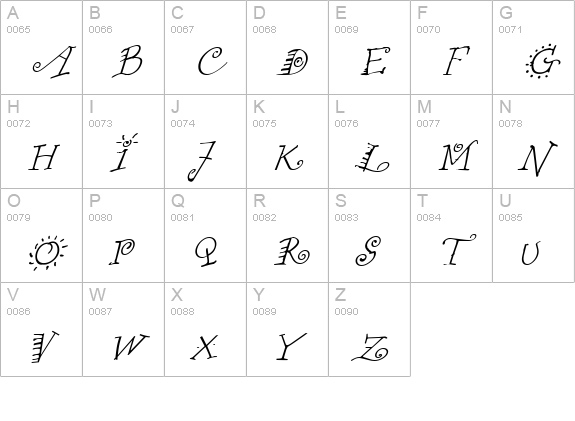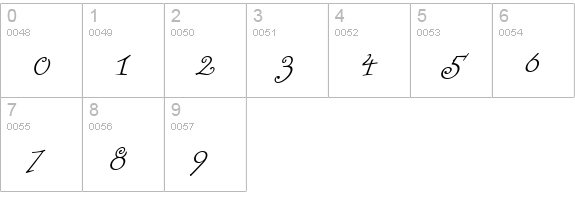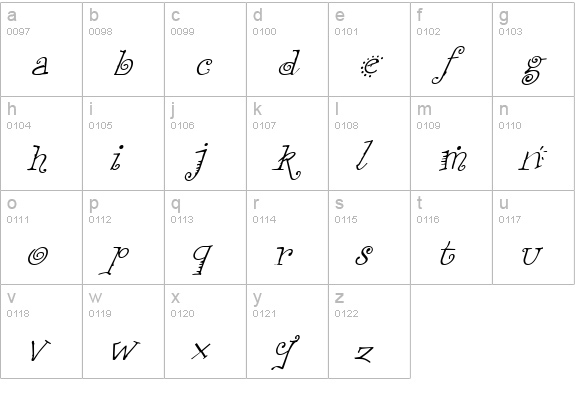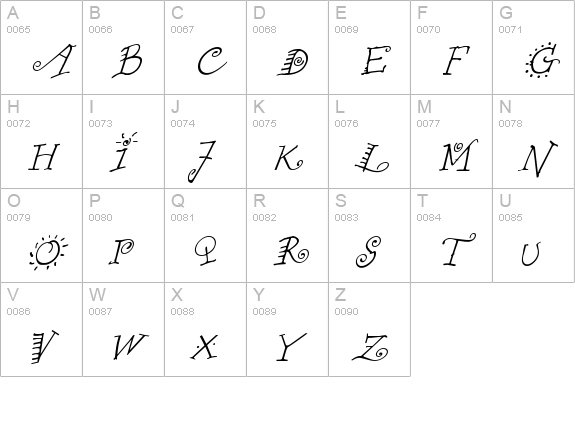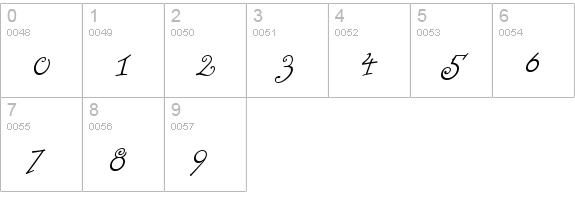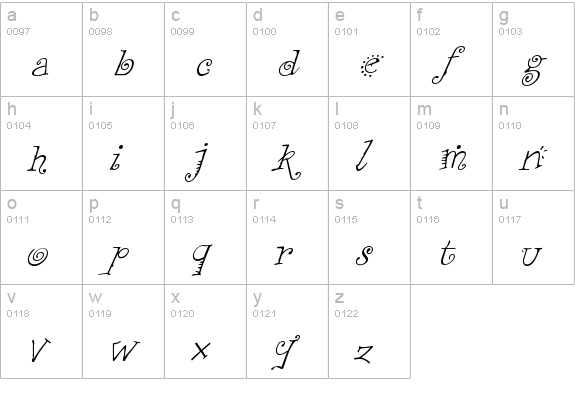
FunstuffXitalic Regular Font Details
FunstuffXitalic Regular is the standard, neutral variant in the FunstuffXitalic typeface family \xE2\x80\x94 well suited to general body text, paragraphs, and standard typographic work.
FunstuffXitalic Regular font is a playful and energetic typeface that is perfect for adding a touch of fun to your designs. With its quirky slanted letters and unique style, this font is sure to stand out and grab attention. What makes FunstuffXitalic Regular font even more appealing is that it is available for free download at FontsMarket.com. Yes, you read that right - this fantastic font can be yours at no cost, allowing you to unleash your creativity without breaking the bank. Whether you're working on a poster, flyer, logo, or any other design project, FunstuffXitalic Regular font will bring a sense of joy and excitement to your work. So why wait? Download this free font today and let the fun begin!